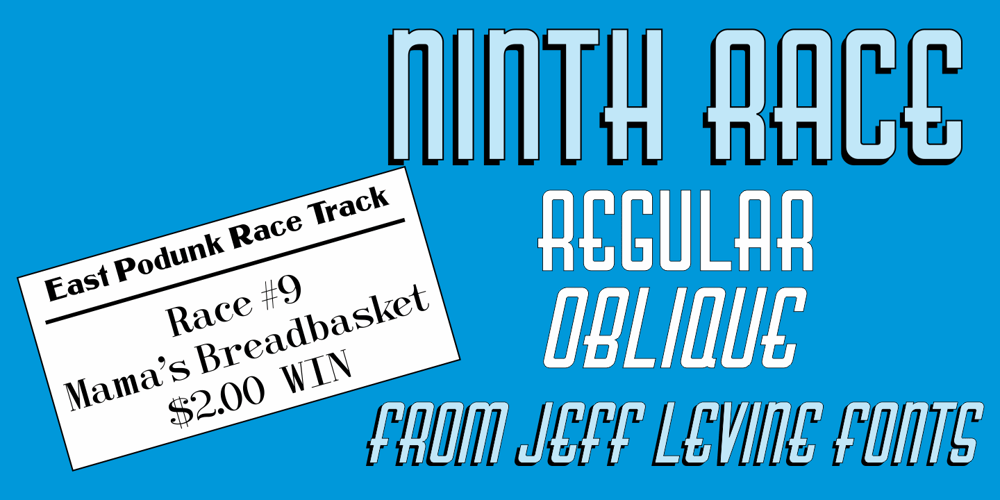
Ninth Race JNL
Ninth Race JNL font
Ninth Race JNL Font Family was designed by Jeff Levine and published by Jeff Levine. Ninth Race JNL contains 2 styles and family package options. A 1930s poster advertising horse racing at Havana, Cuba’s Oriental Park inspired Ninth Race JNL – a condensed Art Deco sans serif type face with rounded corners; available in both regular and oblique versions.